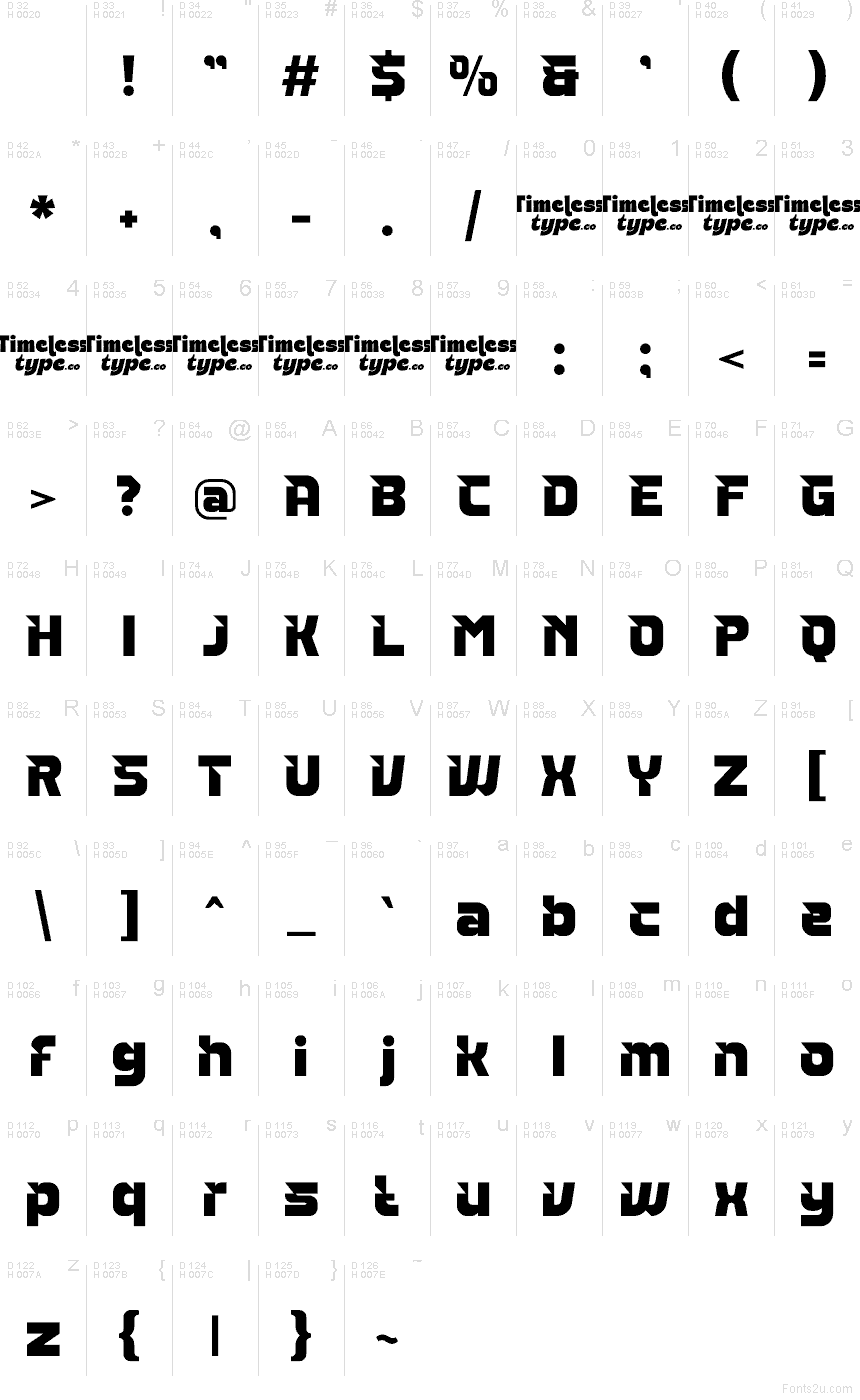
Dominate the design landscape with the intense presence of Secline - Futuristic Sporty Font. This typeface is an ultra-heavy, high-impact display solution engineered for maximum visibility and kinetic energy. Its unique combination of strong, geometric architecture and dynamic, forward-slanted cuts provides an immediate sense of speed and technological prowess. Utilize this font to convey urgency and powerful confidence in any digital or physical medium, ensuring your message is not just seen, but powerfully felt.
Unlock limitless design possibilities using the extensive feature set built into Secline - Futuristic Sporty Font. Featuring a massive inventory of glyphs, ligatures, and stylistic alternates, this font allows for deep typographic customization, letting designers tailor headlines for perfect visual flow and impact. With its extensive multilingual support, Secline - Futuristic Sporty Font adapts seamlessly across global markets, making it incredibly versatile for international projects and expansive digital campaigns.
Elevate your brand identity instantly by employing this typeface in high-stakes visual projects. Secline - Futuristic Sporty Font is specifically perfect for athletic apparel branding, high-energy marketing campaigns, and cutting-edge E-sports team logos. Its unapologetically bold weight makes it the definitive choice for gaming interfaces, dynamic movie titles, and all forms of futuristic, high-performance visual communication requiring absolute standout presence.